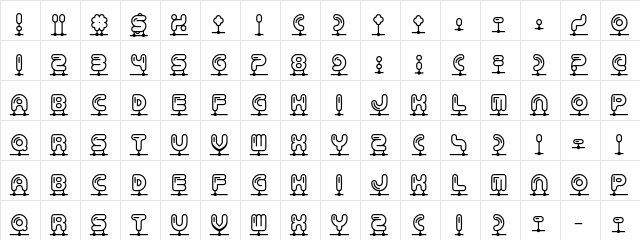
Balloonatic Regular
Design Context for Balloonatic Typeface
Balloonatic is a composed and adaptable typeface that performs quietly and consistently across a wide range of design contexts.